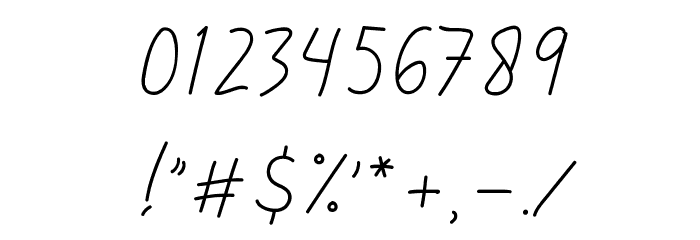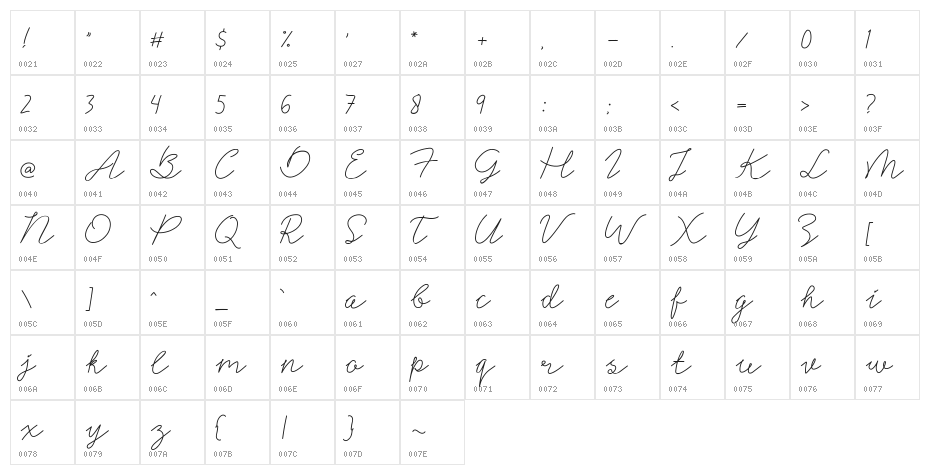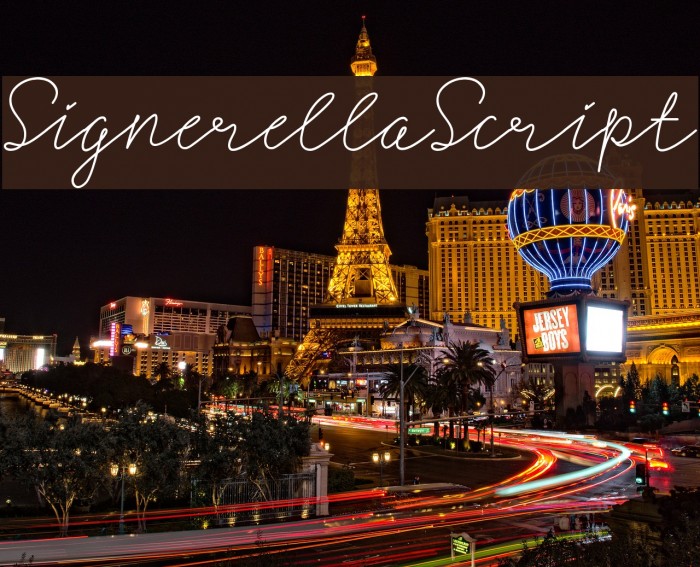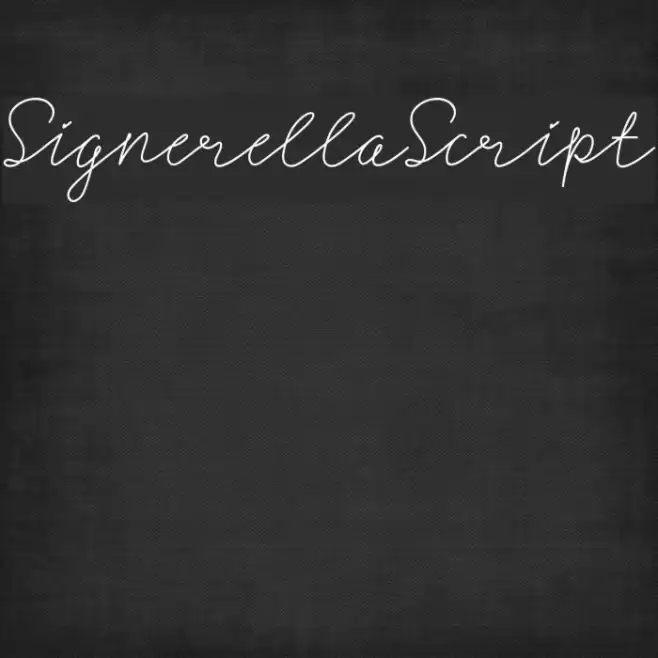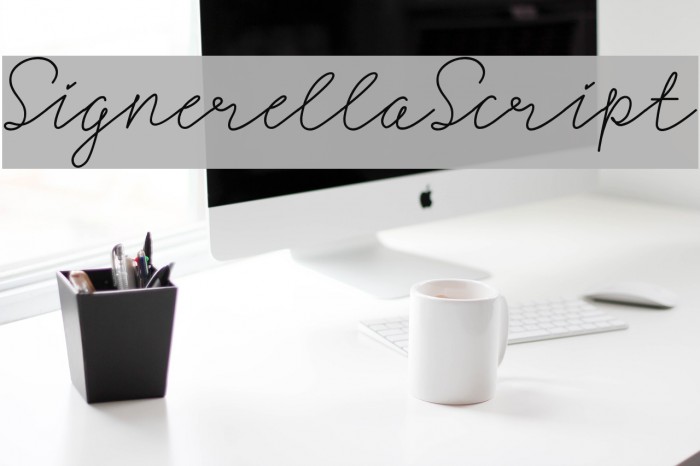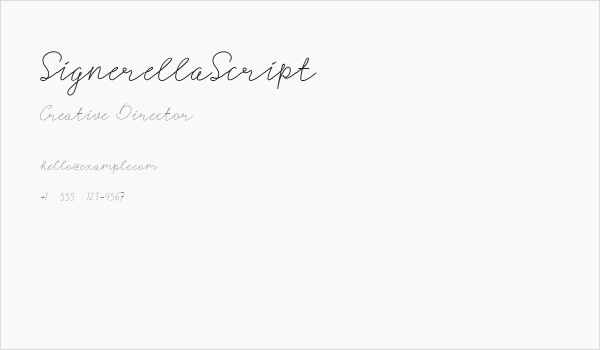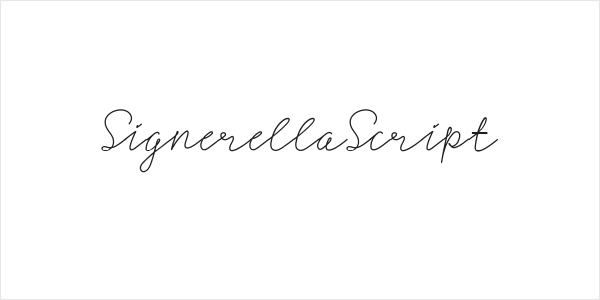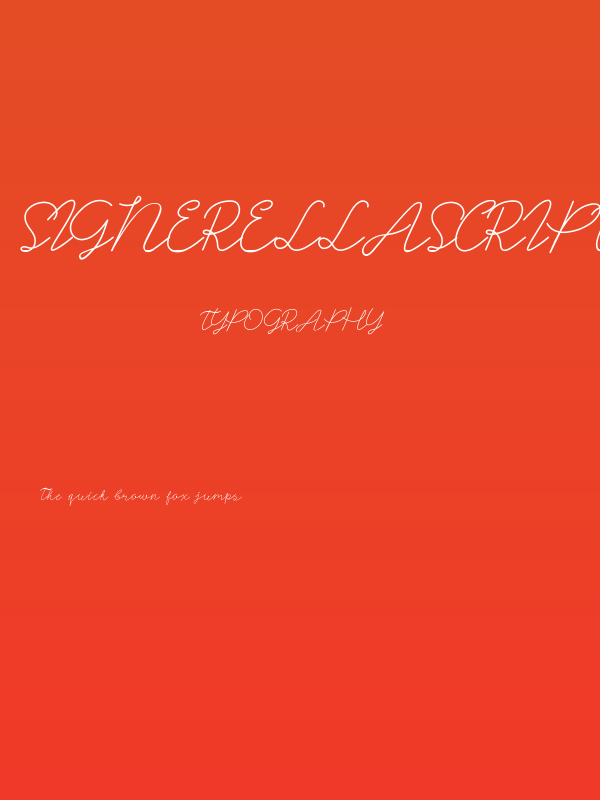
SignerellaScript Font
SignerellaScript Description
This elegant script font features a flowing, cursive style that mimics the fluidity of natural handwriting. The letters are connected with smooth, sweeping strokes, giving it a graceful and sophisticated appearance. The uppercase letters are slightly more elaborate, with loops and curves that add a touch of flair, while the lowercase letters maintain a consistent rhythm and balance. The numerals and special characters are designed to complement the letterforms, ensuring a cohesive look across all text. This font is perfect for adding a personal, handwritten touch to any project.
| Proposed Projects | Ideal for wedding invitations, greeting cards, personal branding, and elegant logos. |